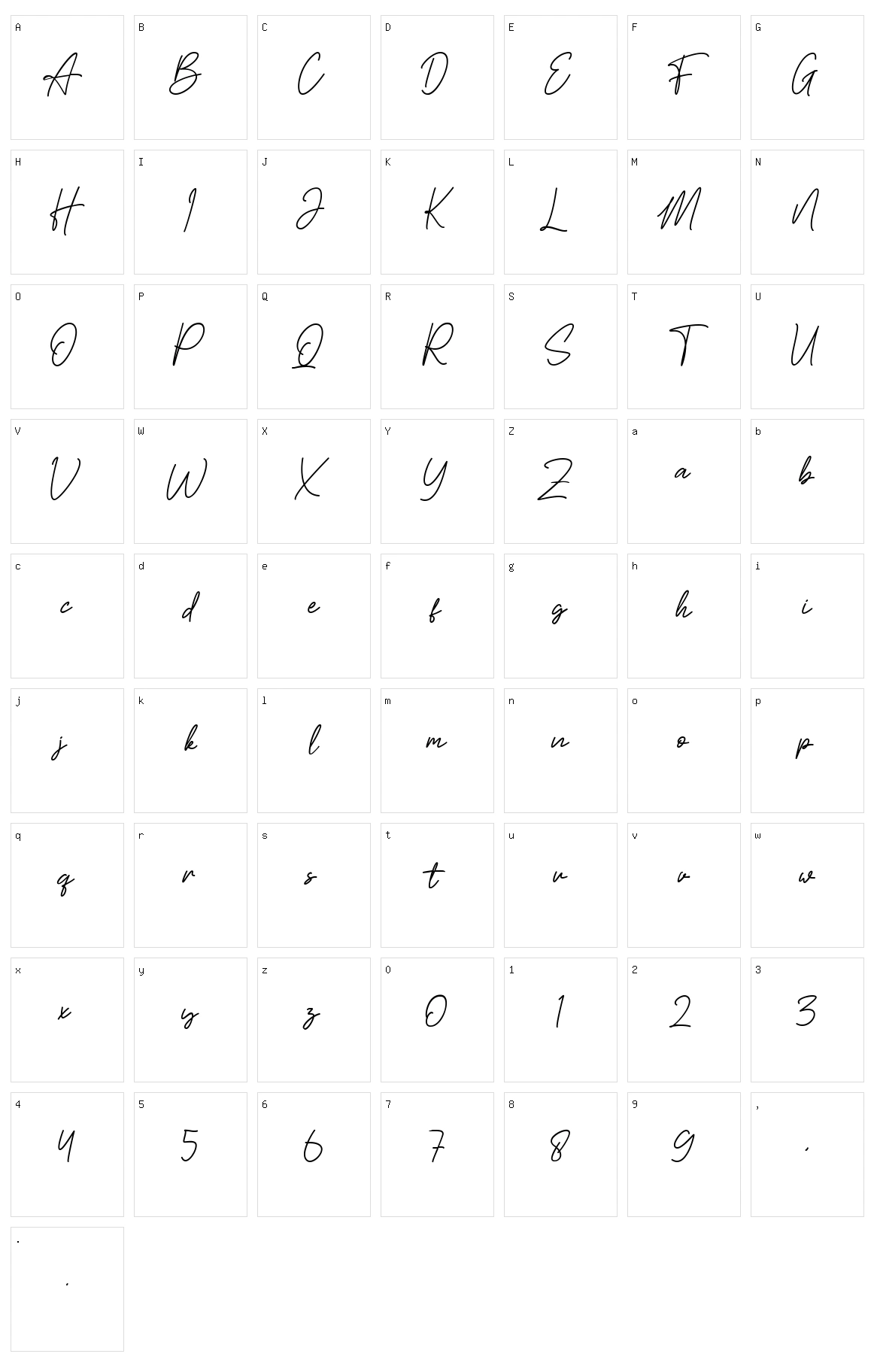
The free font Helliya Signature is carefully designed by Bale, showcasing a thoughtful balance of creativity and usability and falls under the Script font style. When you download the ZIP file, it contains only 31.54 KB of font files, making it lightweight and quick to download. Please review the license details below to understand permitted usage and distribution rights. If license information is not available, we recommend using this font for personal projects only or contacting the author directly for commercial usage permissions.